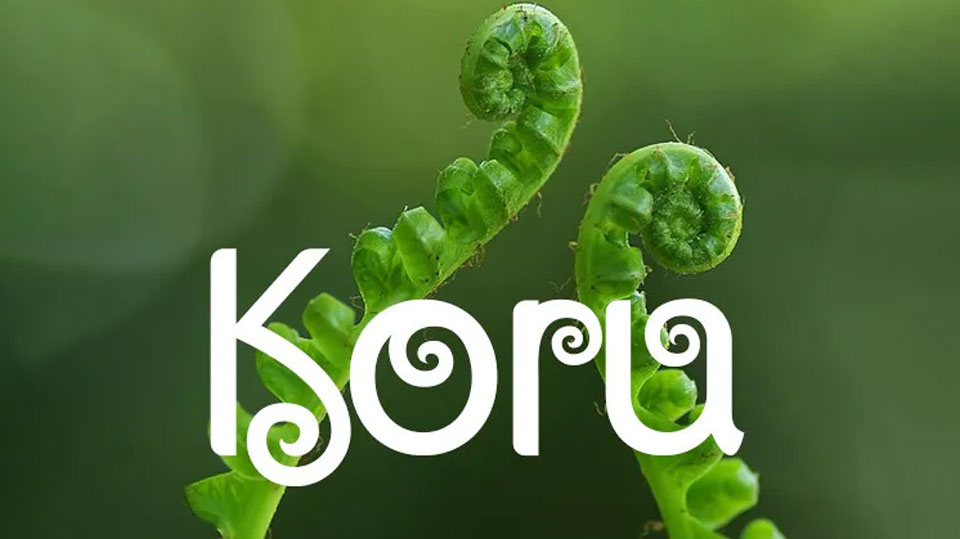
Koru is a font built upon the famous Maori fern leaf emblem, the Koru. Reflecting the harmony and balance of nature. Koru’s letterforms draw directly from the fluid, spiraling shapes of the Koru, evoking growth, renewal, and peaceful energy.
Koru is perfect for projects that seek to convey a connection to nature, culture, and tranquility. Its flowing lines and harmonious proportions reflect the serene beauty of the natural world, making it ideal for everything from wellness branding to environmental campaigns and artistic expressions.